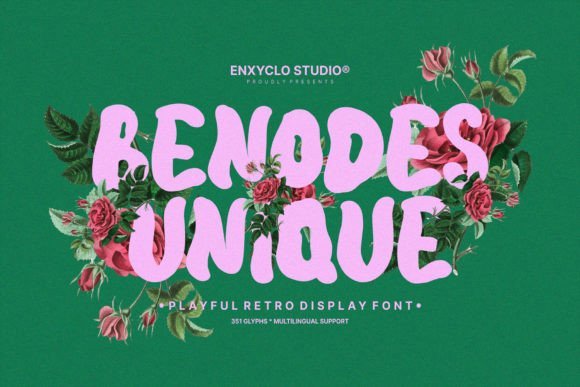
Introduction to Benodes Unique Font
BENODES UNIQUE is a bold playful retro display font.
Masterfully designed to become a true favorite, this font has the potential to bring each of your creative ideas to the highest level It was purposely crafted to be used in large point sizes, although it doesn’t lose its magic in small point sizes.
Key Features of Benodes Unique Font
Why Choose Benodes Unique Font?
Benodes Unique Font offers exceptional quality and versatility, making it a valuable addition to your design toolkit. Whether you’re creating for personal projects or commercial use, Benodes Unique Font delivers professional results.